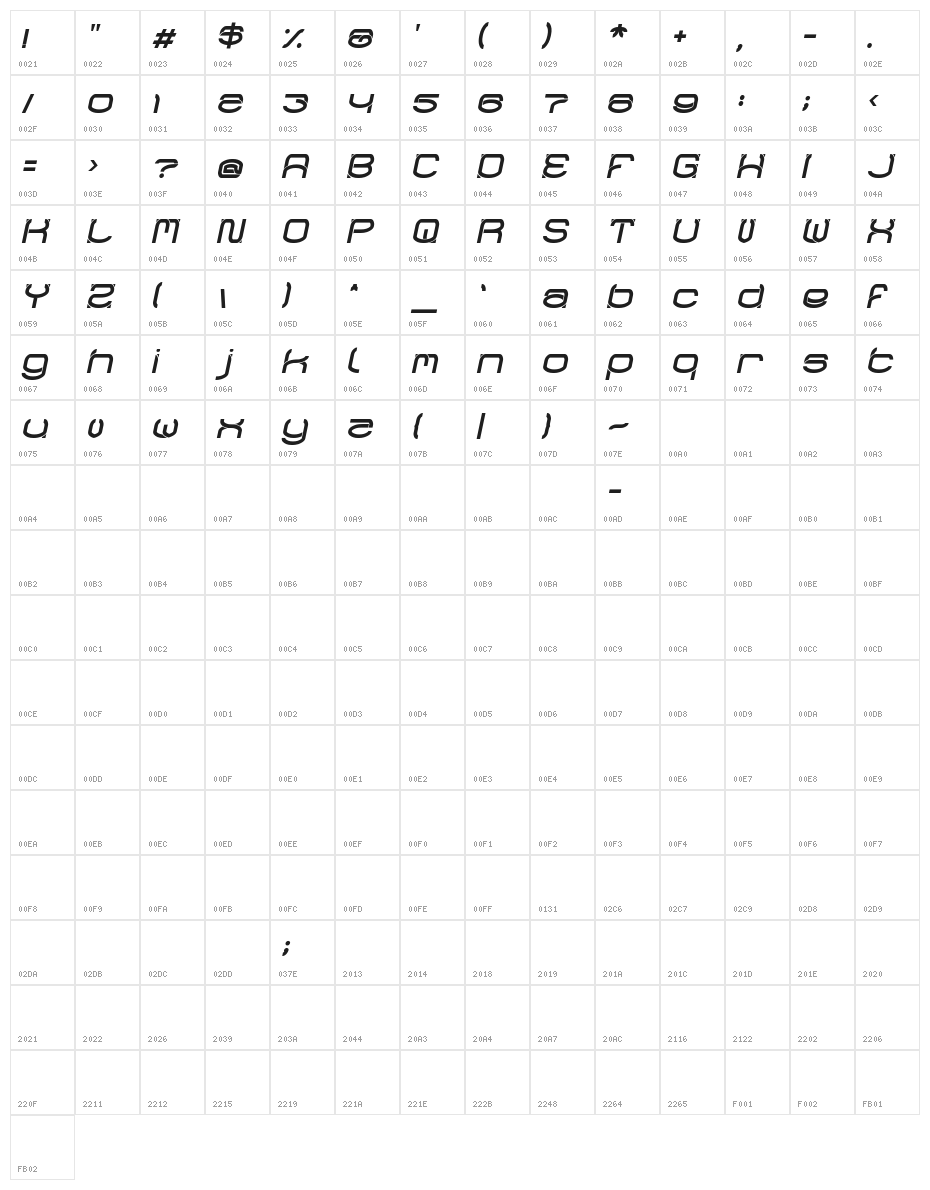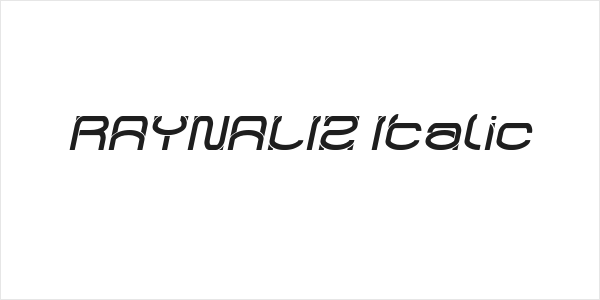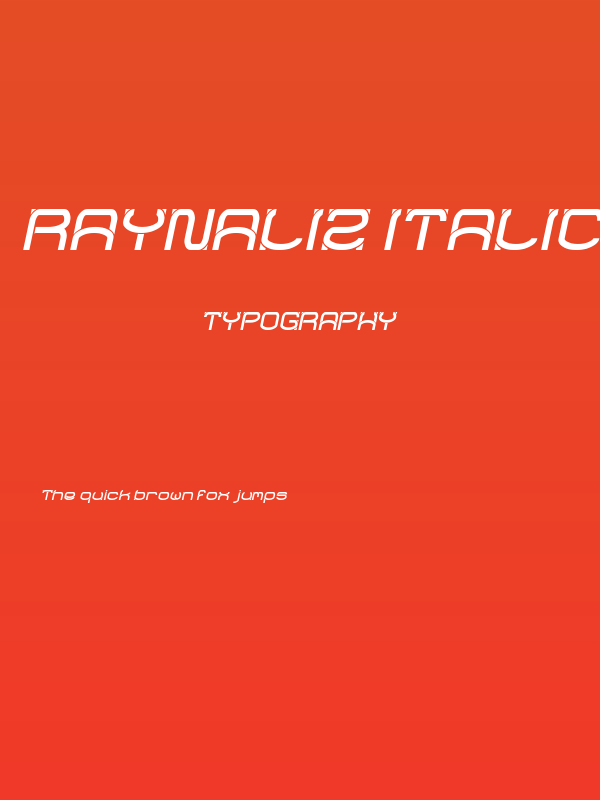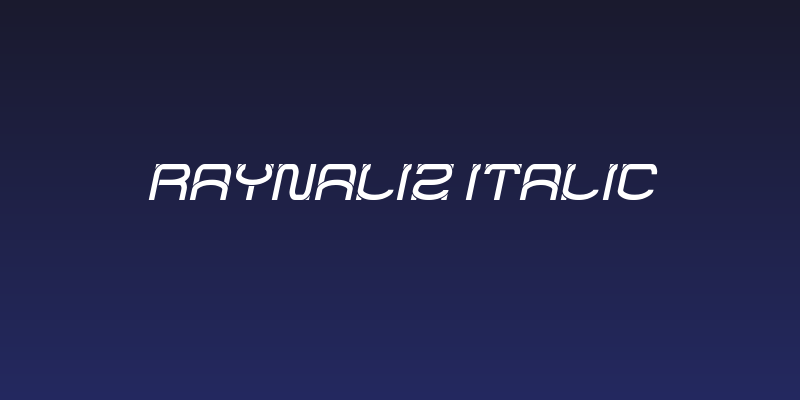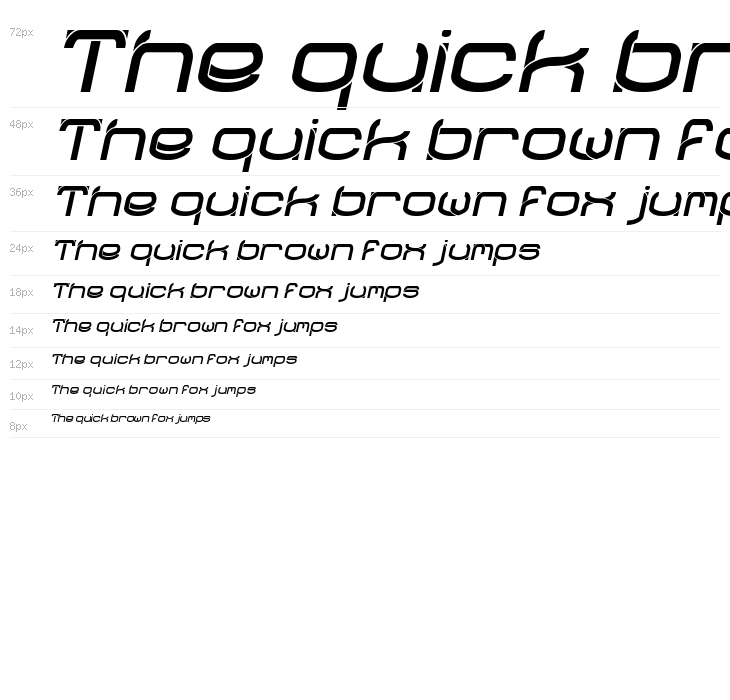
RAYNALIZ Italic Font
RAYNALIZ Italic Description
This font features a sleek, modern design with a distinct italic slant, giving it a dynamic and forward-moving appearance. The characters are crafted with a futuristic flair, incorporating sharp angles and smooth curves that create a sense of motion and energy. The uppercase letters are bold and assertive, while the lowercase letters maintain a consistent style, ensuring readability. Numbers and special characters are designed to match the overall aesthetic, making them suitable for a variety of applications. The font's unique style is ideal for projects that require a contemporary and innovative look.
| Overall Style | Futuristic, Dynamic |
| Use Case | Headlines, Logos, Digital interfaces |
| Proposed Projects | Ideal for technology branding, modern advertising, futuristic posters, and digital interfaces. |